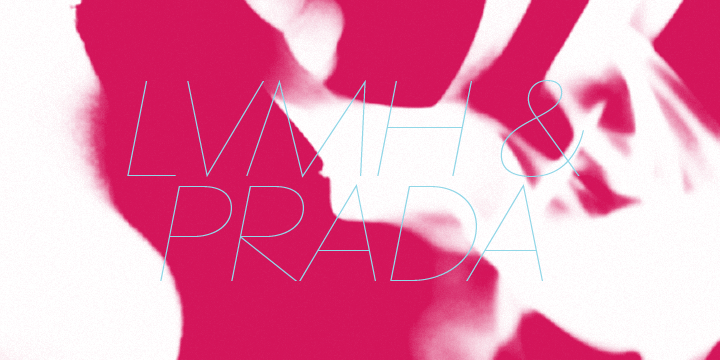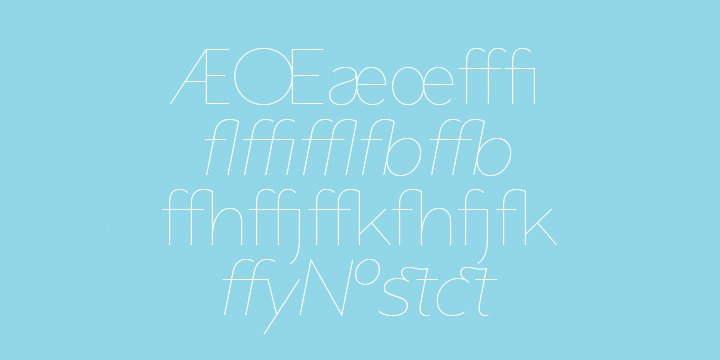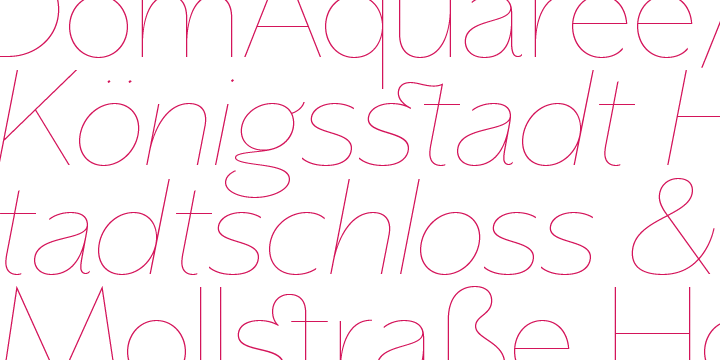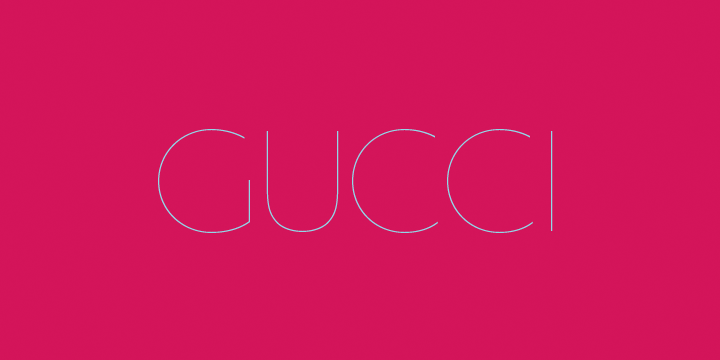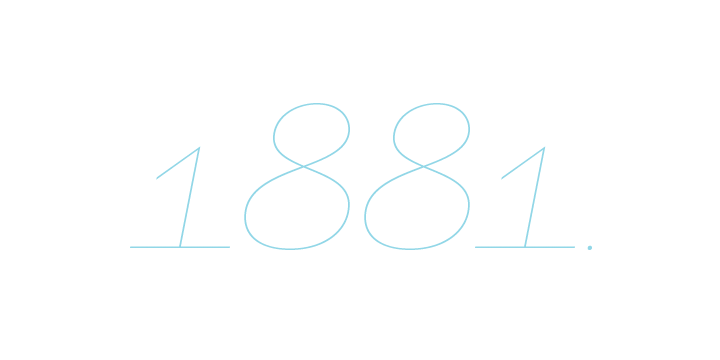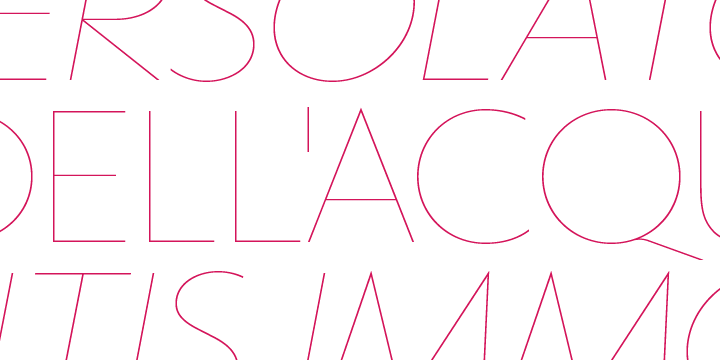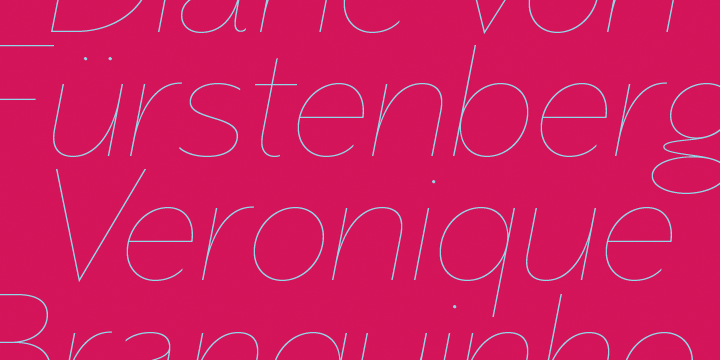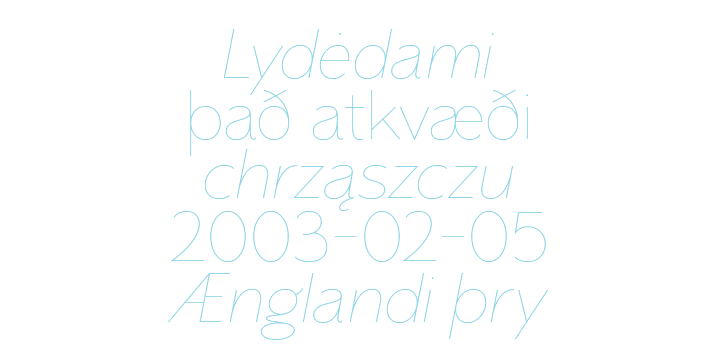
Memoire
Font Family by AE Type
Memoire is an elegant linear hairline contemporary sans. It is based on the underlying form of Vanitas, yet is rendered in a nearly monolinear hairline weight. Memoire is intended to be used selectively for headline use starting at 60pt and above.
Stylistically, Memoire retains Vanitas' alluring, sophisticated sensibility that is directly inspired by high fashion. The delicate linear form creates a sense of cohesiveness and lends the typeface an intriguing lightness of character. The upright styles are complimented by a pairing of optically adjusted true italics, which were purposefully adapted to retain the sharpness of their counterparts. Abandoning traditionally executed cursive italic letterforms retains Memoire's sharp characteristic through each style.
Features include:
• Precision kerning
• Standard Ligatures set including 'f' ligatures (fb, ff, fh, fi, fj, fk, fl ffb, ffh, ffi, ffj, ffk, ffl, ffy, ae, oe, AE, OE)
• Discretionary Ligatures set including (st, ct, No)
• Alternate characters (g, A, AE, Q, $, h circumflex,